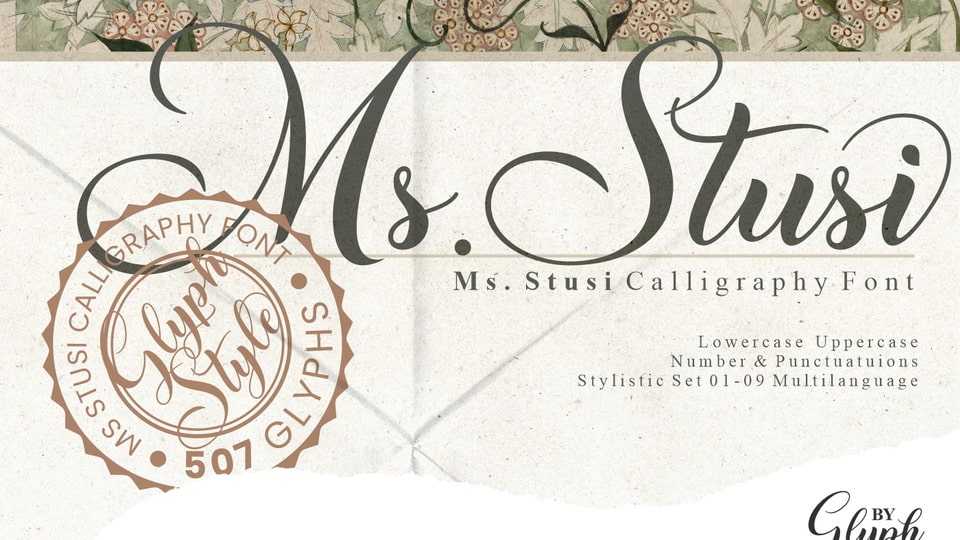
Download Ms Stusi font, a calligraphy typeface with aesthetic curves. It has beautiful curves on each letter, also equipped with a varied stylistic set to support creativity.